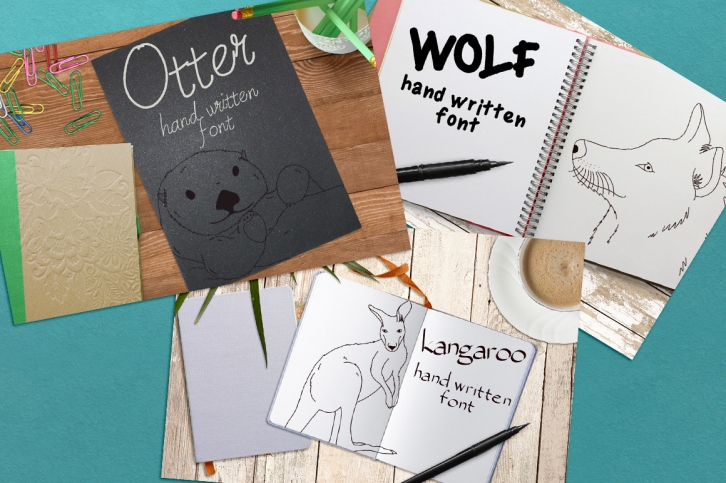
No.4, No.5 and No.6 is a gorgeous font that was realeased on August 29, 2016. The font can be used in many style contexts and design environments. Perfect for invitations, magazines, websites, logos, and more! It was designed by Sunshine Inspired Designs and the file size is 19.94 MB. Thanks for checking out this font!